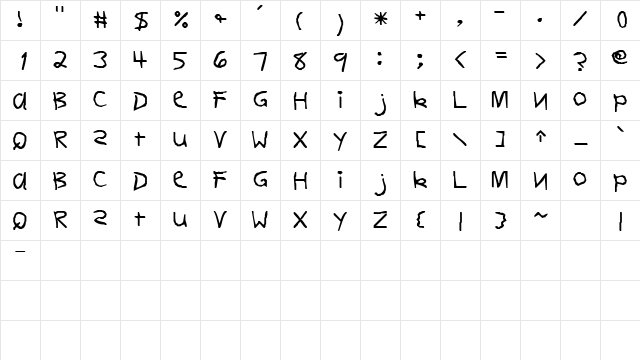
FirstGradeDisplayCapsSSK Regular
Design Context for FirstGradeDisplayCapsSSK Typeface
FirstGradeDisplayCapsSSK brings ornamental detail and strong personality to headlines and identities, where visual impact matters more than quiet functionality.
Font Pairing: Pair with a clean neutral sans-serif for body copy to let FirstGradeDisplayCapsSSK's character lead without overwhelming the composition.
Pro Tip: Treat FirstGradeDisplayCapsSSK as the centrepiece of your typographic hierarchy. One strong heading set in a decorative face can carry an entire layout.